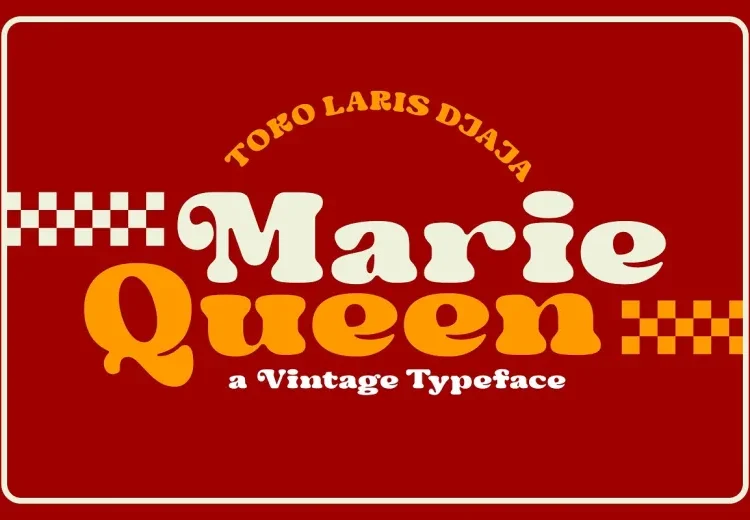
Marie Queen Font
Marie Queen is a bold and durable retro vintage typeface, inspired by the strength and nostalgia of classic retro fonts. It exudes a playful yet powerful retro style, making it perfect for a wide range of projects, including label packaging, crafting books, and posters.
This font shines as a display typeface, adding a distinctive retro vibe to any design concept. Whether you’re working on posters, merchandise, branding, or stickers, Marie Queen provides that signature look that defines retro-themed designs.